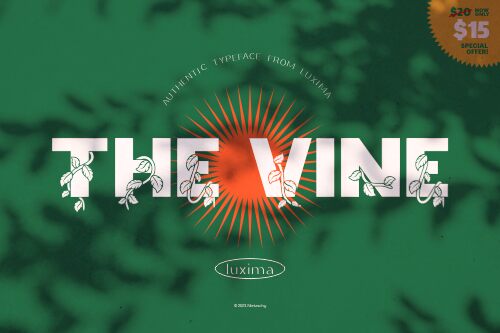
The Vine, designed by Luxima Creative Studio, is a bold sans-serif decorative display font with a semi-expanded width. Its intricate design and unique style make it perfect for projects that require a touch of creativity and sophistication. The Vine will add a touch of elegance to any branding project, including logos, packaging designs, and promotional materials. Its bold weight also makes it ideal for headlines and titles in magazines or websites. With its semi-expanded width, this typeface can be used in various layouts without compromising the legibility of the text. Choose The Vine to elevate your design game and leave a lasting impression on your audience.
The Vine